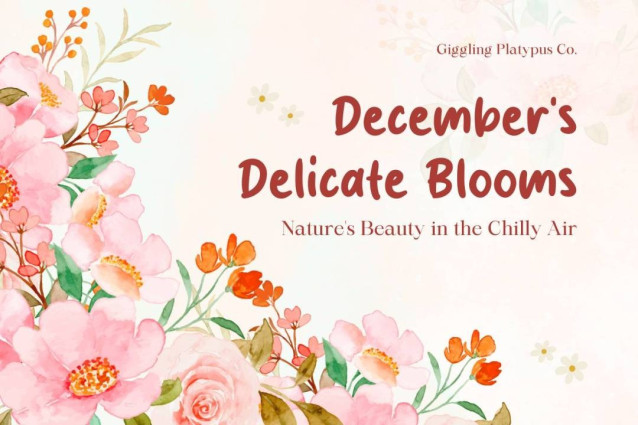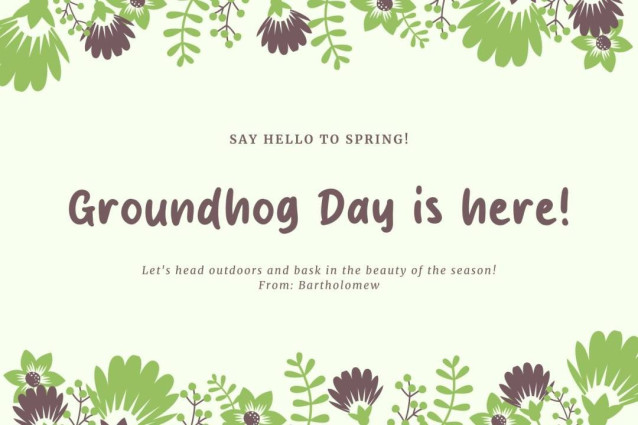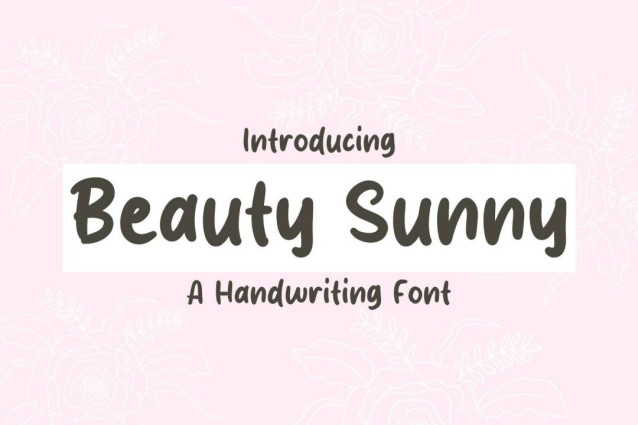
Beauty Sunny Font
Beauty Sunny Font is a simple and friendly handwritten font. Its natural and unique style makes it incredibly fitting to a large pool of designs. The only limit is your imagination!